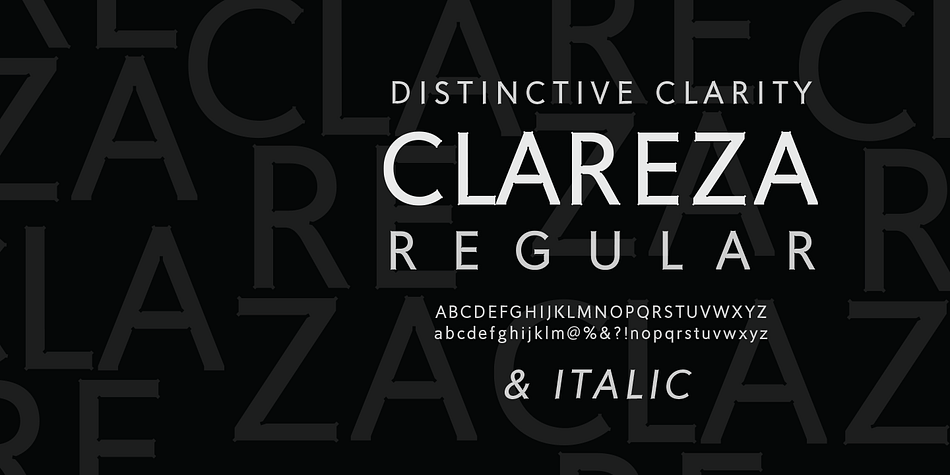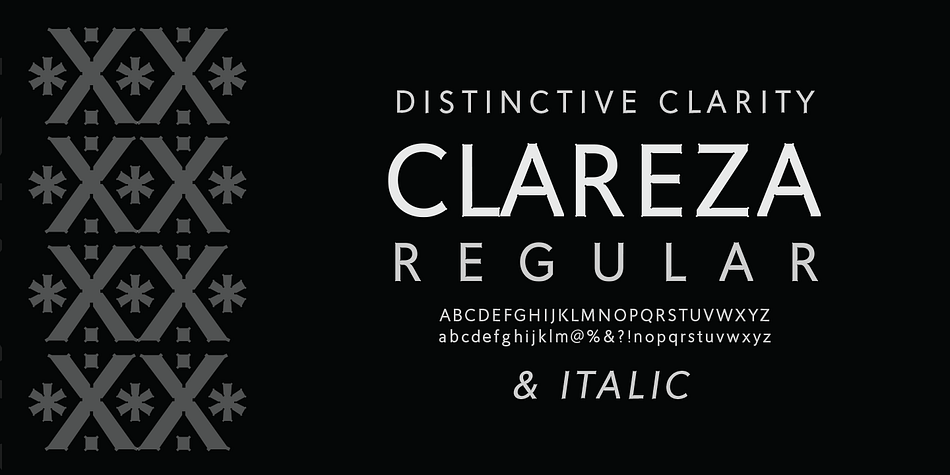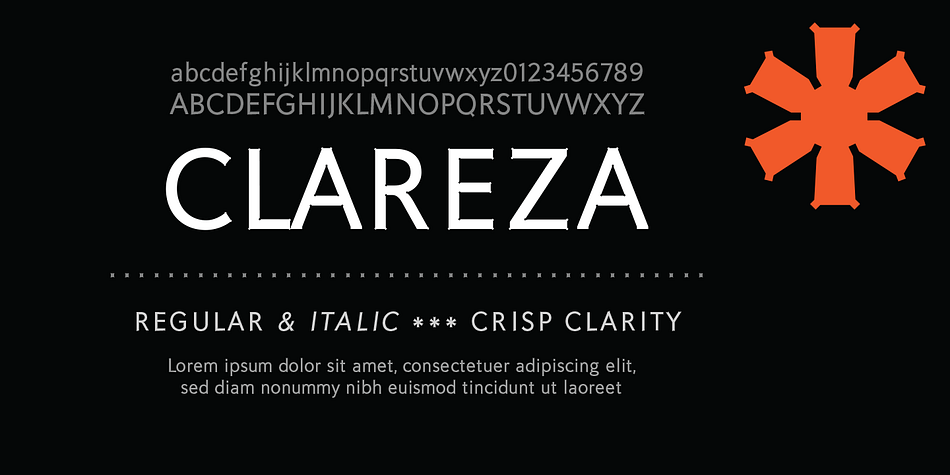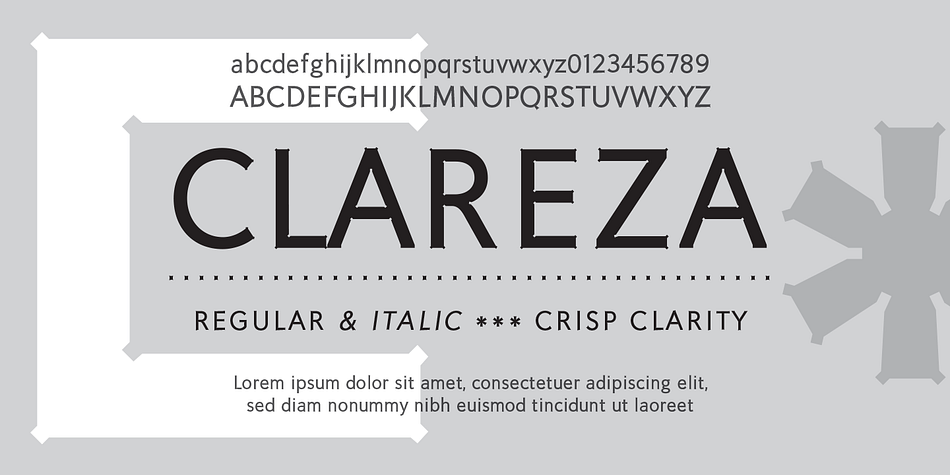
Clareza is a sans serif font family. This typeface has two styles and was published by Wilton Foundry.
Clareza means “Clarity” in Portugese. That was exactly the goal in creating this font. We managed to create a font that is crisp and extremely legible at all sizes but then comes to life in an interesting and unusual way when used as a display font. The glyph traps are at the heart of Clareza’s unusual style: they were carefully designed to become a great feature at display sizes, adding an interesting personality without dominating.
Clareza is a solid Geometric workhorse ideal for clear, legible, applications including branding, advertising and signage. If you are looking for a font that is crisp with a little more personality, Clareza will absolutely fit the bill!